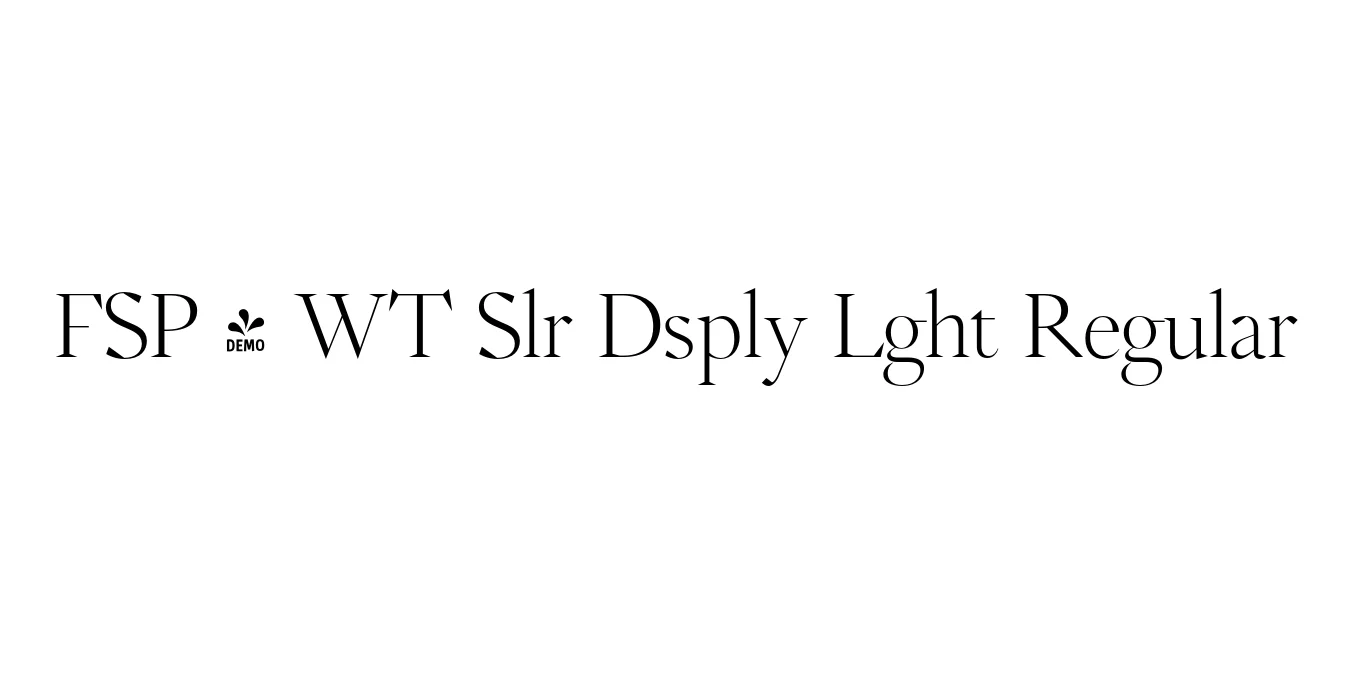
FSP - WT Slr Dsply Lght Regular
Designed by WiseType
WT Solar Display Light is a contemporary serif typeface that pushes the boundaries of traditional display typography. Created by the innovative foundry WiseType, this font is characterized by its extreme contrast between thick and thin strokes, resulting in a look that is both razor-sharp and incredibly elegant. The Light weight specifically highlights the delicate architecture of the letterforms, making it a standout choice for high-end visual communication.
Throughout its development, WT Solar was designed to bridge the gap between classic editorial aesthetics and modern experimental design. Its unique character set includes sharp terminals and sophisticated curves that command attention on the page. It is widely utilized in the worlds of fashion, art, and luxury branding, where its distinct personality helps create a memorable and refined visual identity.
Perfect for magazine headlines and sophisticated layout designs.
Ideal for luxury brands and high-end fashion logos.
Adds a touch of elegance to hero sections and landing pages.
Excellent for posters, invitations, and book covers.